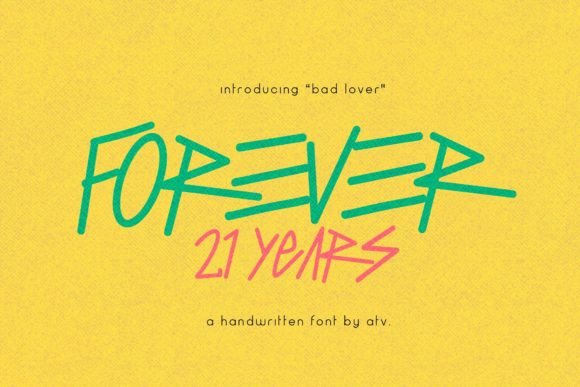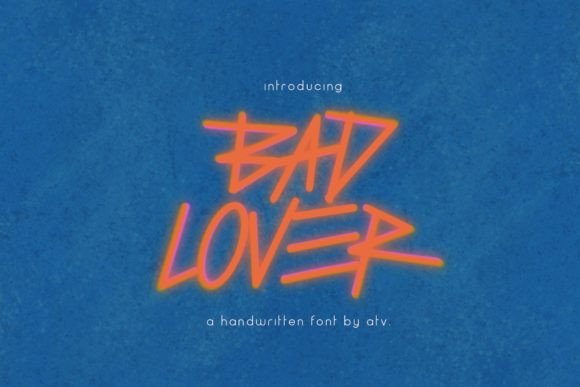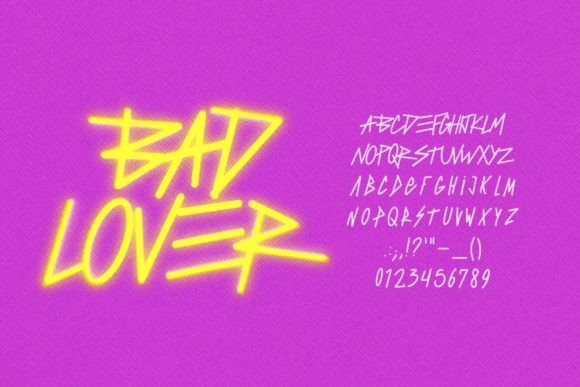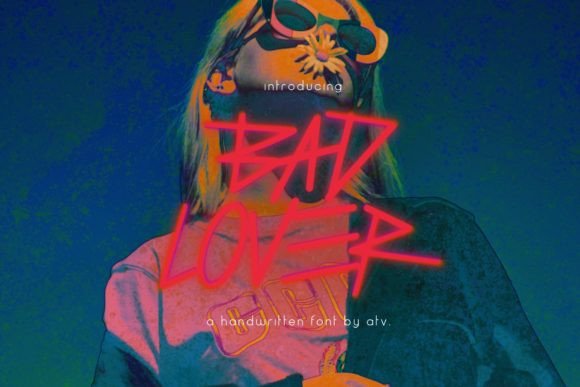
Introducing Bad Lover Font: The Ultimate Modern Handwritten Font
Are you tired of using the same old fonts in your designs? Do you want to add a touch of modernity and style to your creations? Look no further than Bad Lover Font, a cool and trendy handwritten font that’s perfect for designers and crafters alike. In this article, we’ll dive into the world of Bad Lover Font and explore its features, benefits, and uses.
What is Bad Lover Font?
Bad Lover Font is a modern handwritten font that’s designed to elevate your designs and make them stand out. With its unique and stylish lettering, this font is perfect for creating eye-catching headlines, titles, and text. Whether you’re a designer, crafter, or simply a DIY enthusiast, Bad Lover Font is a must-have in your font collection.
Features of Bad Lover Font
So, what makes Bad Lover Font so special? Here are some of its key features:
• Modern and trendy design: Bad Lover Font boasts a fresh and contemporary design that’s perfect for modern designs.
• Handwritten style: This font has a beautiful handwritten feel that’s perfect for adding a personal touch to your designs.
• High-quality letters: Each letter in Bad Lover Font is carefully crafted to ensure high-quality and clear text.
• Easy to read: Despite its stylish design, Bad Lover Font is easy to read and understand, making it perfect for body text and headlines.
Benefits of Using Bad Lover Font
So, why should you use Bad Lover Font in your designs? Here are some benefits:
• Adds a touch of personality: Bad Lover Font adds a personal touch to your designs, making them more relatable and engaging.
• Increases visual appeal: The unique design of Bad Lover Font makes your text stand out, adding visual appeal to your designs.
• Versatile: Bad Lover Font can be used in a variety of designs, from posters and flyers to social media graphics and blog posts.
• Time-saving: With Bad Lover Font, you can create professional-looking designs in no time, saving you time and effort.
Uses of Bad Lover Font
Bad Lover Font is a versatile font that can be used in a variety of designs, including:
• Posters and flyers: Add a touch of modernity to your posters and flyers with Bad Lover Font.
• Social media graphics: Use Bad Lover Font to create eye-catching social media graphics that stand out.
• Blog posts: Add a personal touch to your blog posts with Bad Lover Font.
• Logos and branding: Use Bad Lover Font to create a unique and stylish logo for your brand.
Tips for Using Bad Lover Font
Here are some tips for using Bad Lover Font effectively:
• Use it sparingly: Use Bad Lover Font sparingly to avoid overwhelming your design.
• Pair it with other fonts: Pair Bad Lover Font with other fonts to create a unique and stylish combination.
• Experiment with colors: Experiment with different colors to find the perfect match for your design.
Font Name Bad Lover Font
Author Alien Shop
In conclusion, Bad Lover Font is a cool and modern handwritten font that’s perfect for designers and crafters alike. With its unique and stylish design, this font is sure to elevate your creations and make them stand out. Whether you’re looking to add a touch of personality to your designs or simply want to try something new, Bad Lover Font is a must-have in your font collection.